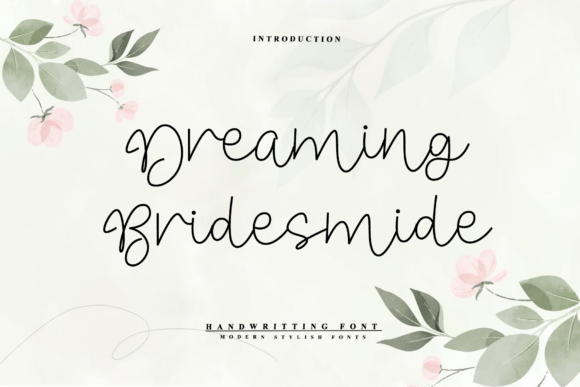
Unlock the Magic of Handwritten Charm
Do you remember that moment when you stumbled upon the perfect font for your design project? For many creatives, it’s the ‘aha’ moment that sparks inspiration and sets their work apart. For us, it’s the Dreaming Bridesmide Font that brings a touch of elegance and sophistication to any design. This beautiful handwritten script font is perfect for those looking to add a personal and professional touch to their projects.
With its smooth strokes, lovely curves, and consistent weight, the Dreaming Bridesmide Font is a valuable addition to any designer’s toolkit. Whether you’re creating custom sublimation designs, boutique branding, or personalized gifts, this font is sure to impress. Its clean connections and excellent legibility make it a favorite among designers who demand a high level of functionality in their font choices.
Dreaming Bridesmaid Font Key Features
- Font Size and Resolution: This elegant script font is designed to be used at various font sizes, ranging from 12 to 48 points, and is optimized for high-resolution displays (up to 300 DPI).
- Unique Characteristics: Dreaming Bridesmaid Font features a beautiful, flowing script style with intricate details and subtle flourishes, making it perfect for wedding invitations, stationery, and other special occasions.
- Font Style: This font has a romantic, whimsical feel, with a mix of cursive and script elements that add a touch of elegance and sophistication to any design.
Dreaming Bridesmaid Font Review
As a designer, I was excited to dive into the “Dreaming Bridesmaid Font” and see if it lived up to its name. ✨ Here are my thoughts:
- ✨ The font has a unique, whimsical feel that’s perfect for weddings and other feminine events.
- ✨ The character set is comprehensive, with a wide range of symbols, punctuation, and special characters.
- ✨ The font is highly customizable, with options for font weight, size, and color.
- ⚠️ The font can be a bit too ornate for some designs, making it difficult to read at smaller sizes.
- ⚠️ The font doesn’t include any support for Cyrillic or Greek characters, which may be a limitation for designers working with non-English clients.
- ⚠️ The font files are quite large, which can make them difficult to work with on slower computers.
Overall, I’d say the “Dreaming Bridesmaid Font” is a solid choice for designers looking for a unique, feminine font for weddings and other events. While it has some limitations, the font’s customization options and comprehensive character set make it a valuable addition to any designer’s toolkit.
Practical Application Guide for “Dreaming Bridesmaid Font”
Tips for Getting the Most Out of “Dreaming Bridesmaid Font”
Use “Dreaming Bridesmaid Font” for wedding invitations, bridesmaid dresses, and other wedding-related designs.
Combine “Dreaming Bridesmaid Font” with other elegant fonts for a cohesive and sophisticated look.
Experiment with different font sizes and colors to add visual interest to your design.
Alternative Fonts to Dreaming Bridesmaid
Q: Are there any font size limitations for the Dreaming Bridesmaid Font?
No, the Dreaming Bridesmaid Font is designed to be scalable and can be used at any font size, from small captions to large headlines. However, keep in mind that font size and legibility can be affected by the specific design software and operating system being used.